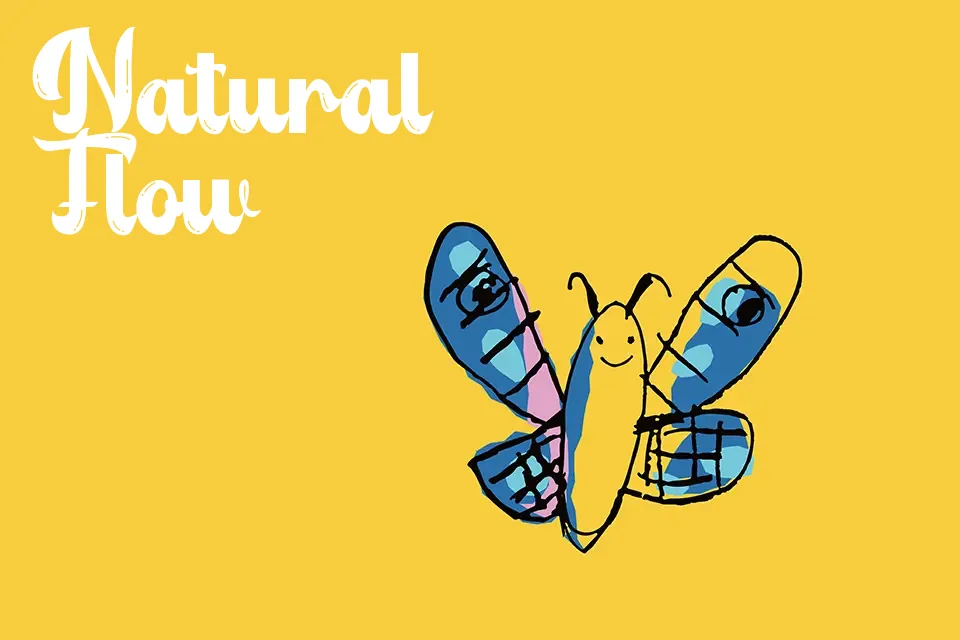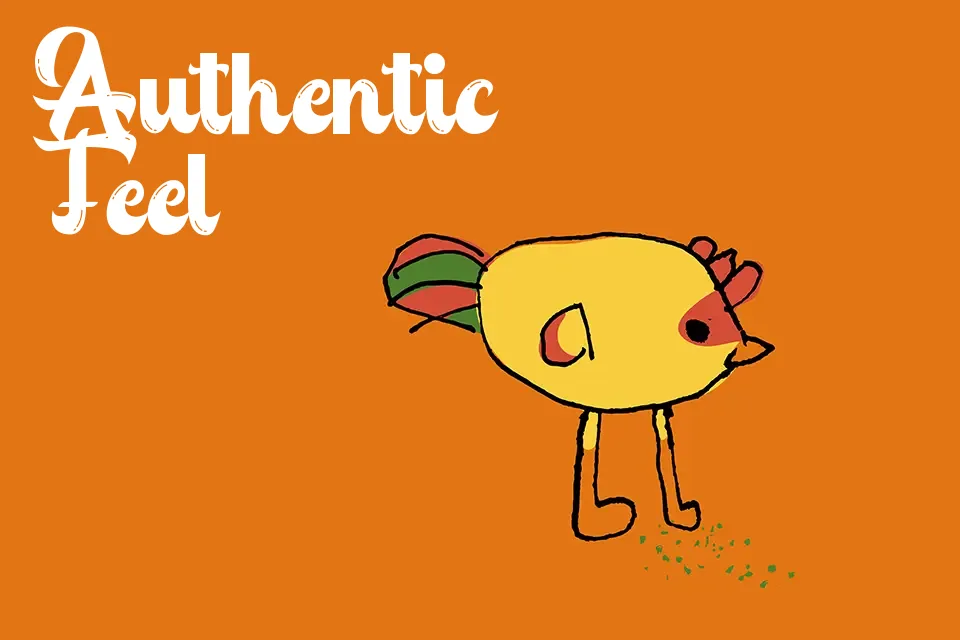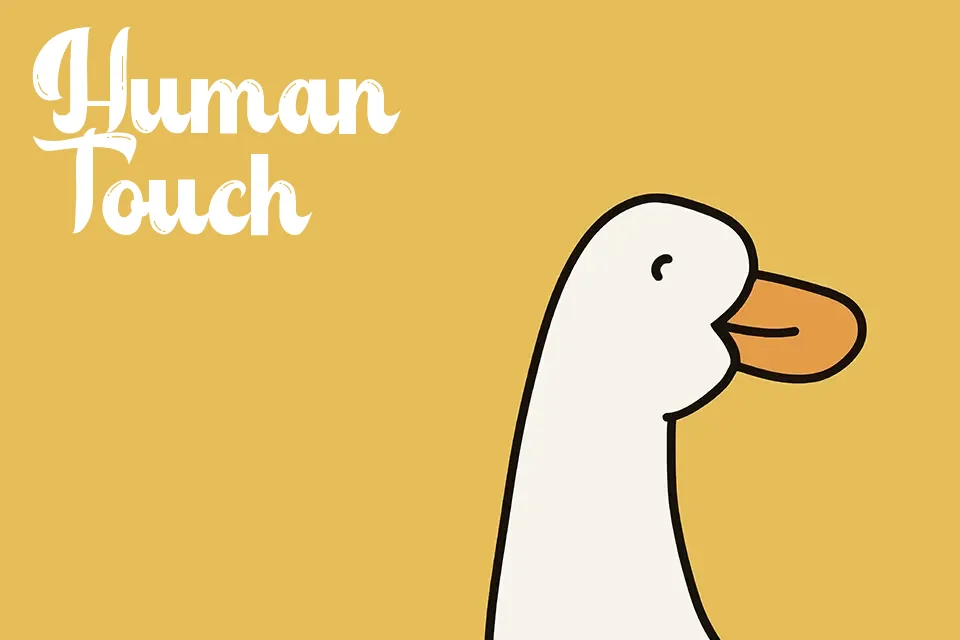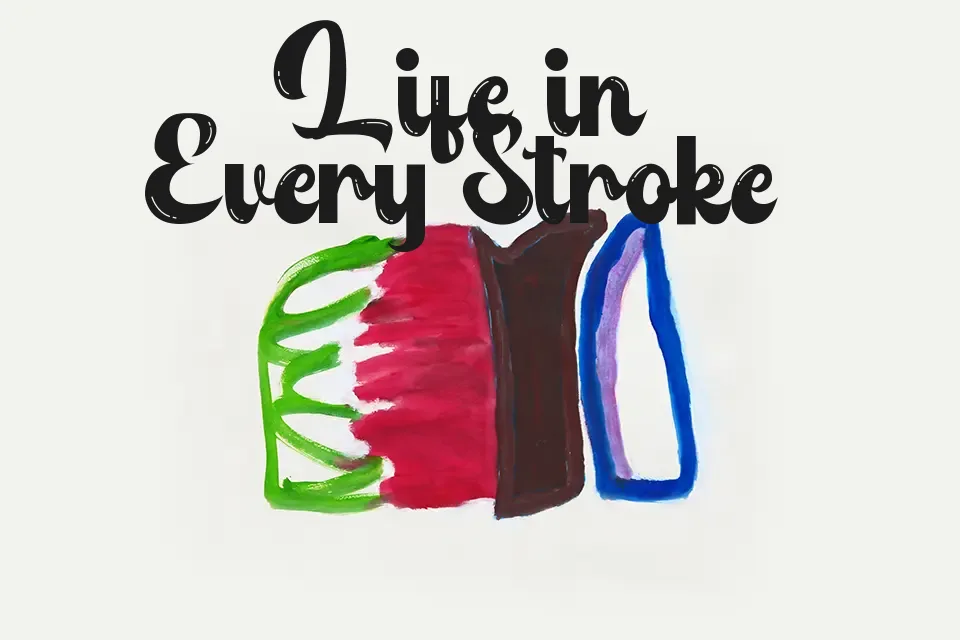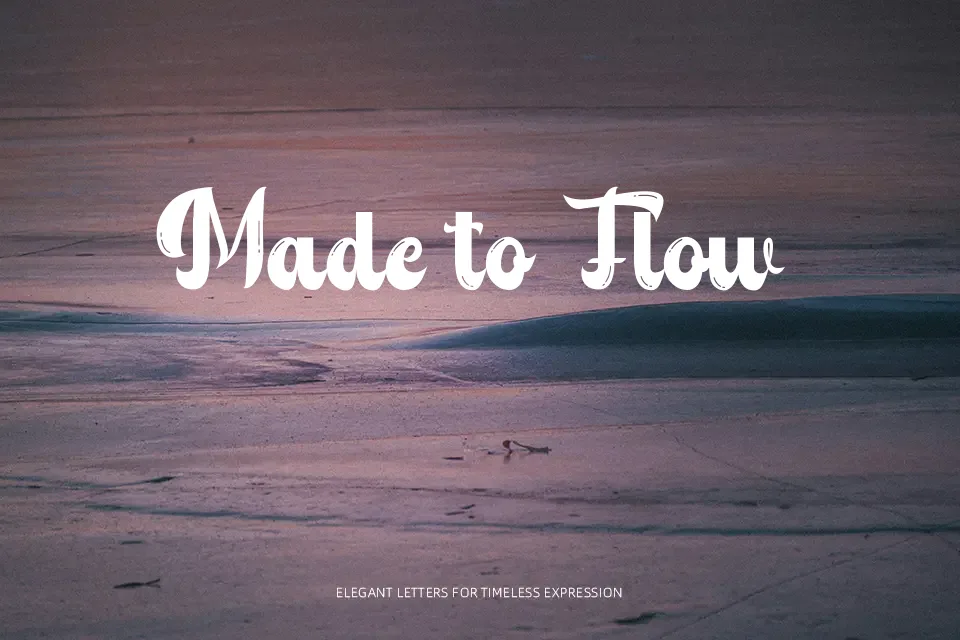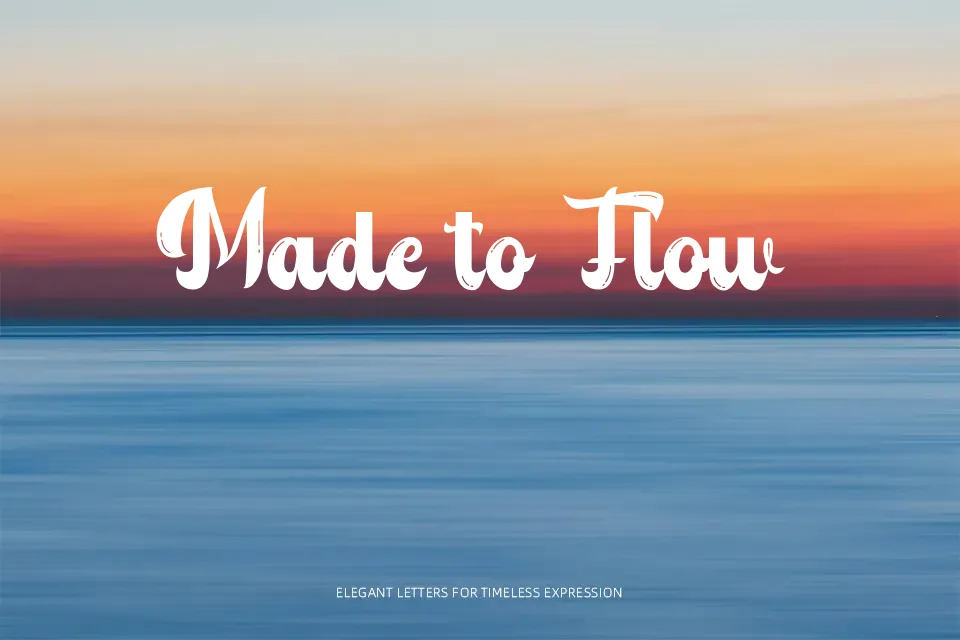
Candy Ballon Font
Candy Ballon is a bold script with smooth, rounded strokes, generous curves, and a slightly glossy feel that mimics quick but controlled handwriting. Letters connect cleanly, with enough weight and spacing to stay readable at display sizes while still feeling casual and decorative. It shines on bakery logos, dessert menus, children’s packaging, school posters, and friendly social graphics where you want something sweet but not flimsy. In longer paragraphs or serious editorial layouts, the heavy script can feel tiring and a bit too playful, so it works better as a feature headline or logotype than as supporting body text.
bakery and dessert branding,children’s product packaging,playful logo wordmarks,school or classroom posters
long body copy layouts,formal corporate documents,very small size text,serious news or editorial design
Perfect for headline, kids, and logo, with a creative and decorative style.